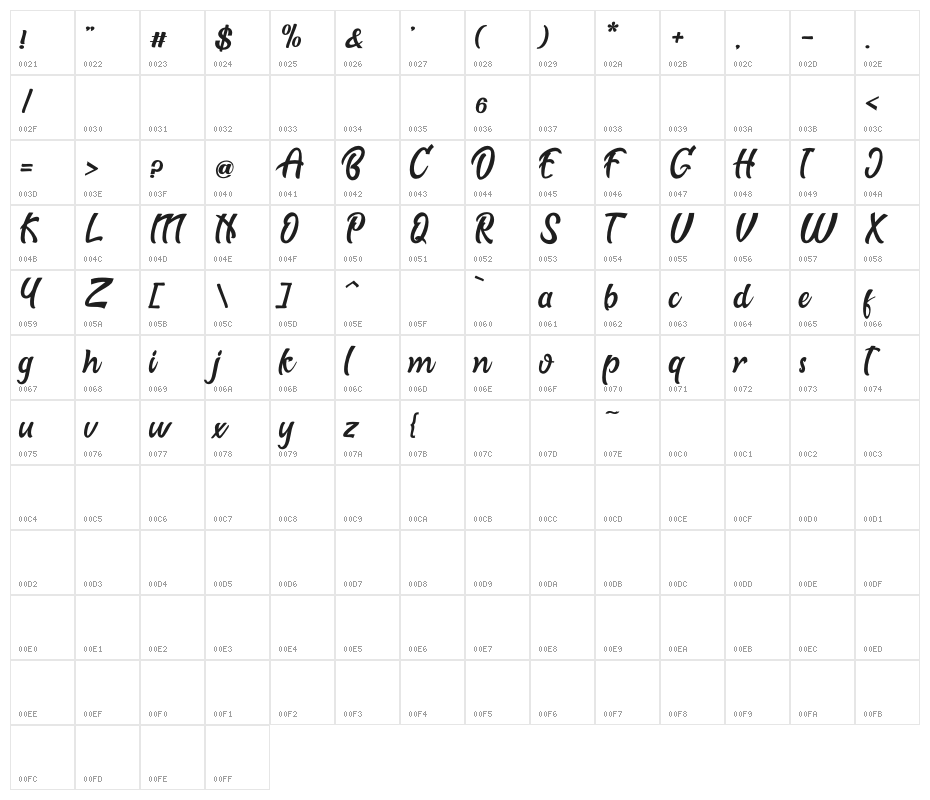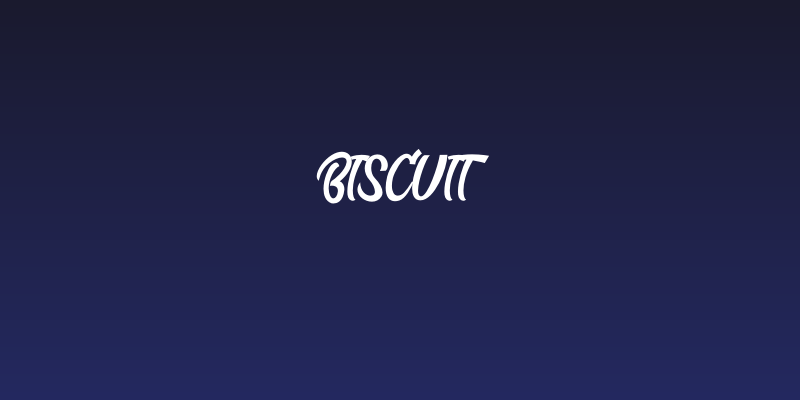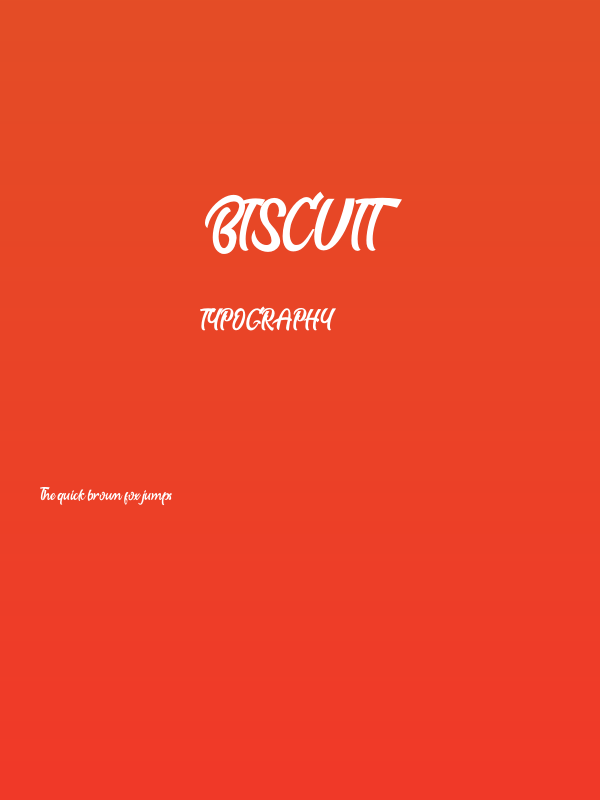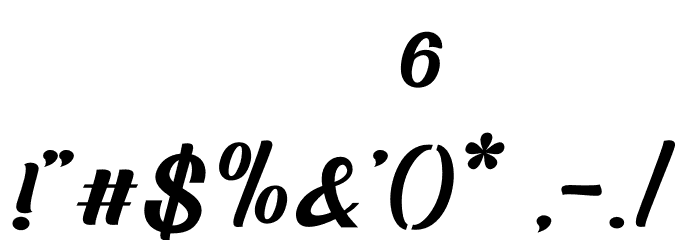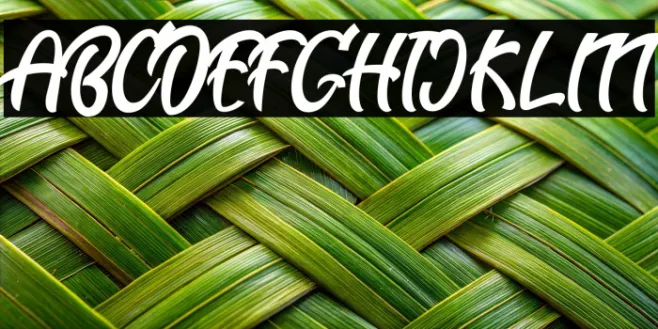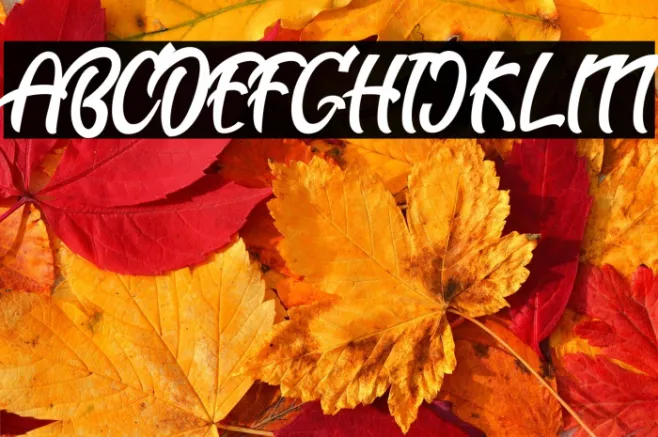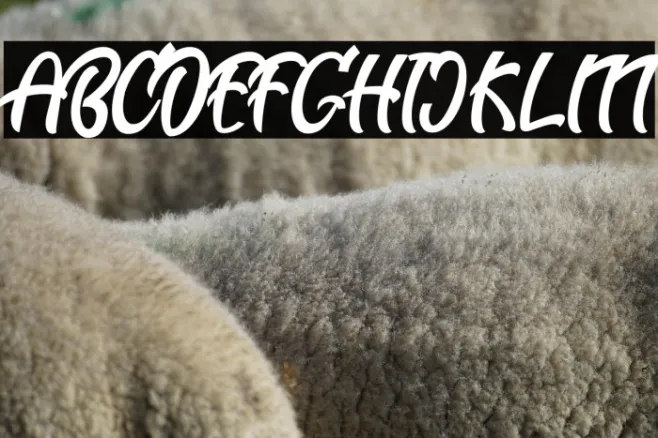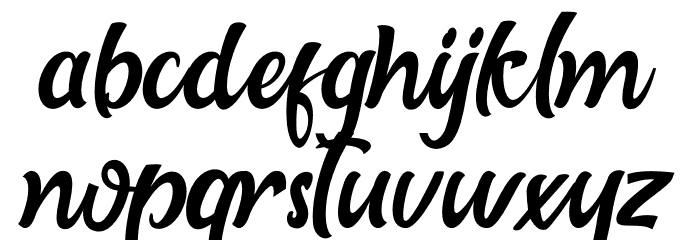
Biscuit Font
Biscuit Description
This font features a bold and expressive script style, characterized by its flowing, cursive letterforms that convey a sense of elegance and dynamism. The strokes are thick and consistent, providing a strong visual impact. The uppercase letters are particularly striking, with sweeping curves and a sense of movement, while the lowercase letters maintain a cohesive style with rounded edges and smooth connections. The numerals and special characters are designed to complement the overall aesthetic, ensuring versatility across various applications.
| Proposed Projects | Ideal for branding, invitations, greeting cards, and decorative headlines. |